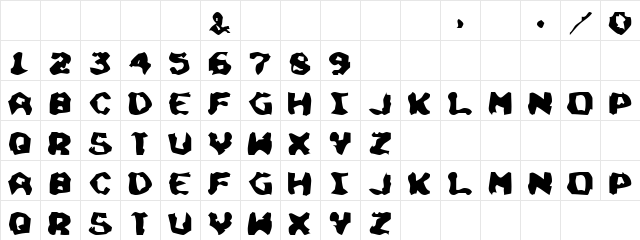
Opel Regular
Design Context for Opel Typeface
Opel is a composed and adaptable typeface that performs quietly and consistently across a wide range of design contexts.